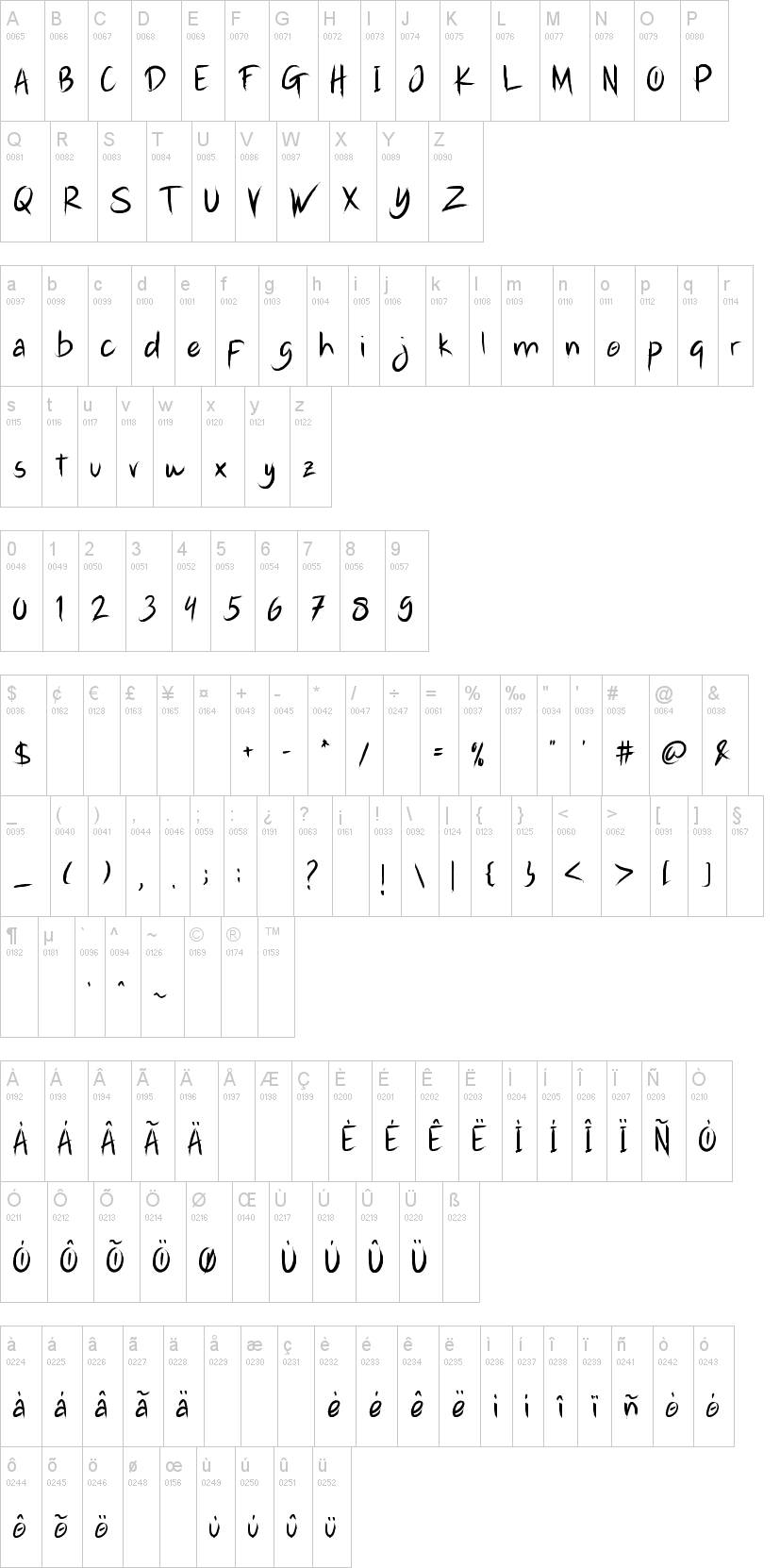
Note of the authorIntroducing Hustle Hardcore - Brush Font. A Fonts with shapes such as brush strokes are made in such a way that become fierce .for any Comercial Use please notice me youthlabs.std@gmail.com see the full version on link bellow